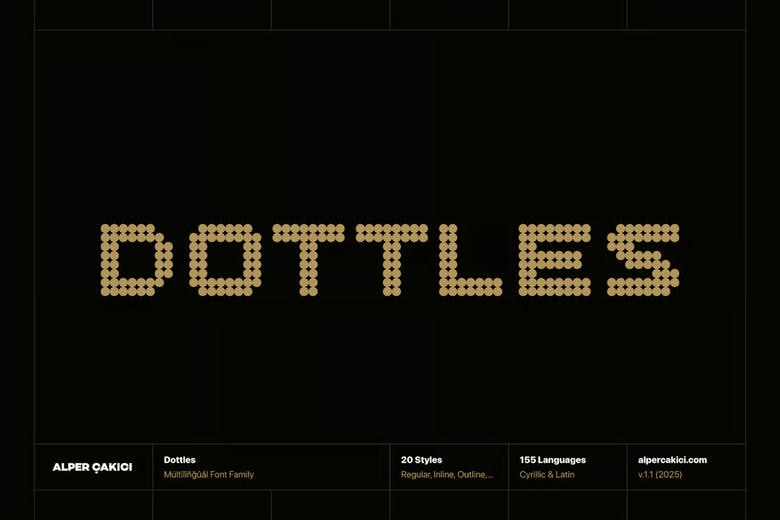
Dottles Font Family
Dottles is a lively family of geometric dot fonts full of personality. Dottles is made for creative, bold projects and blends a clean look with a playful, dot-inspired style.
Dottles comes in many styles, including Regular, Inline, Outline, Sharp, Diamond, Octagon, Hexadecagon, and Pattern styles. You can mix, match, and layer them to make your designs stand out. Dottles also supports over 155 languages and the full Cyrillic alphabet.
Dottles Display Font Family